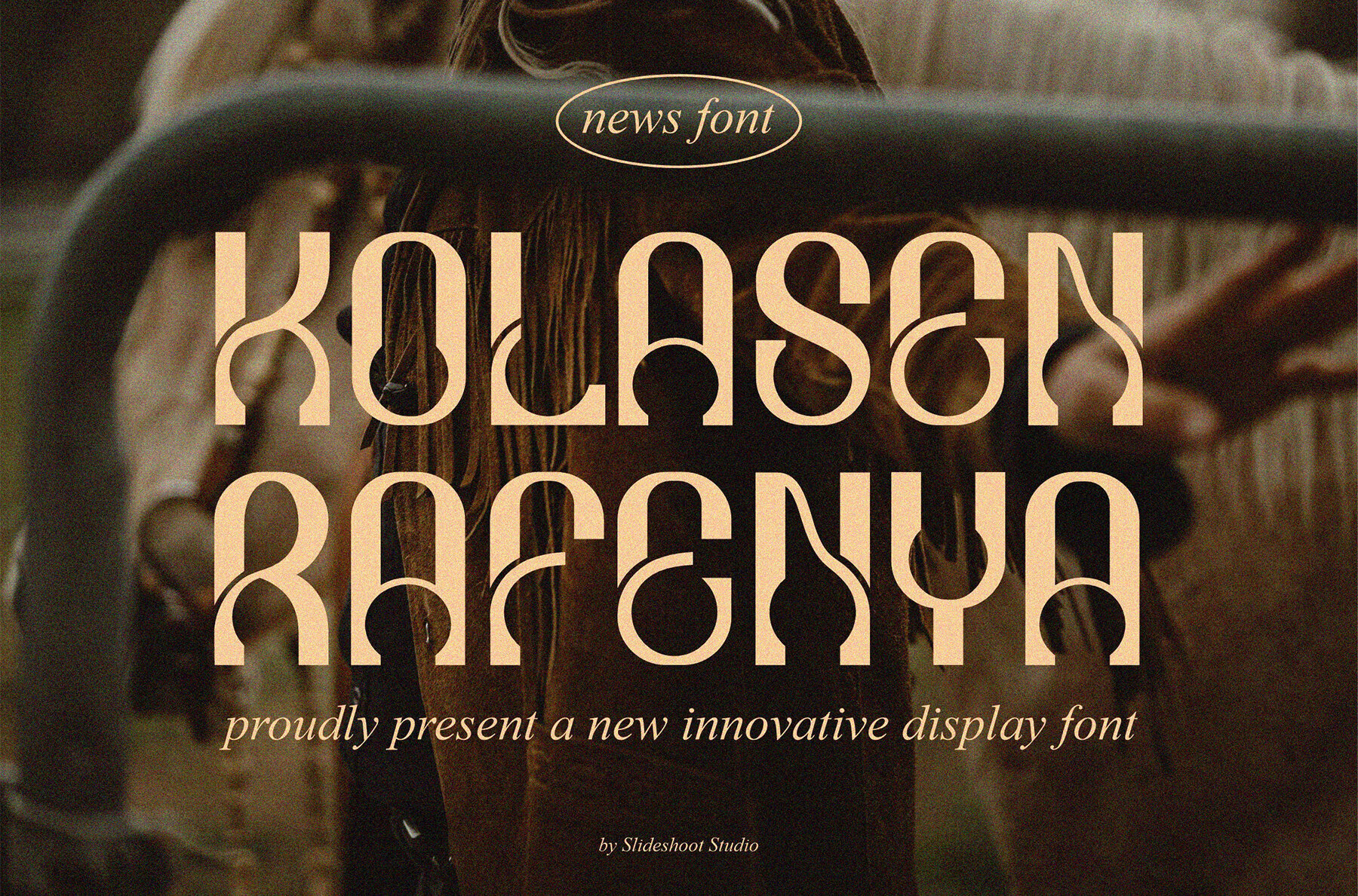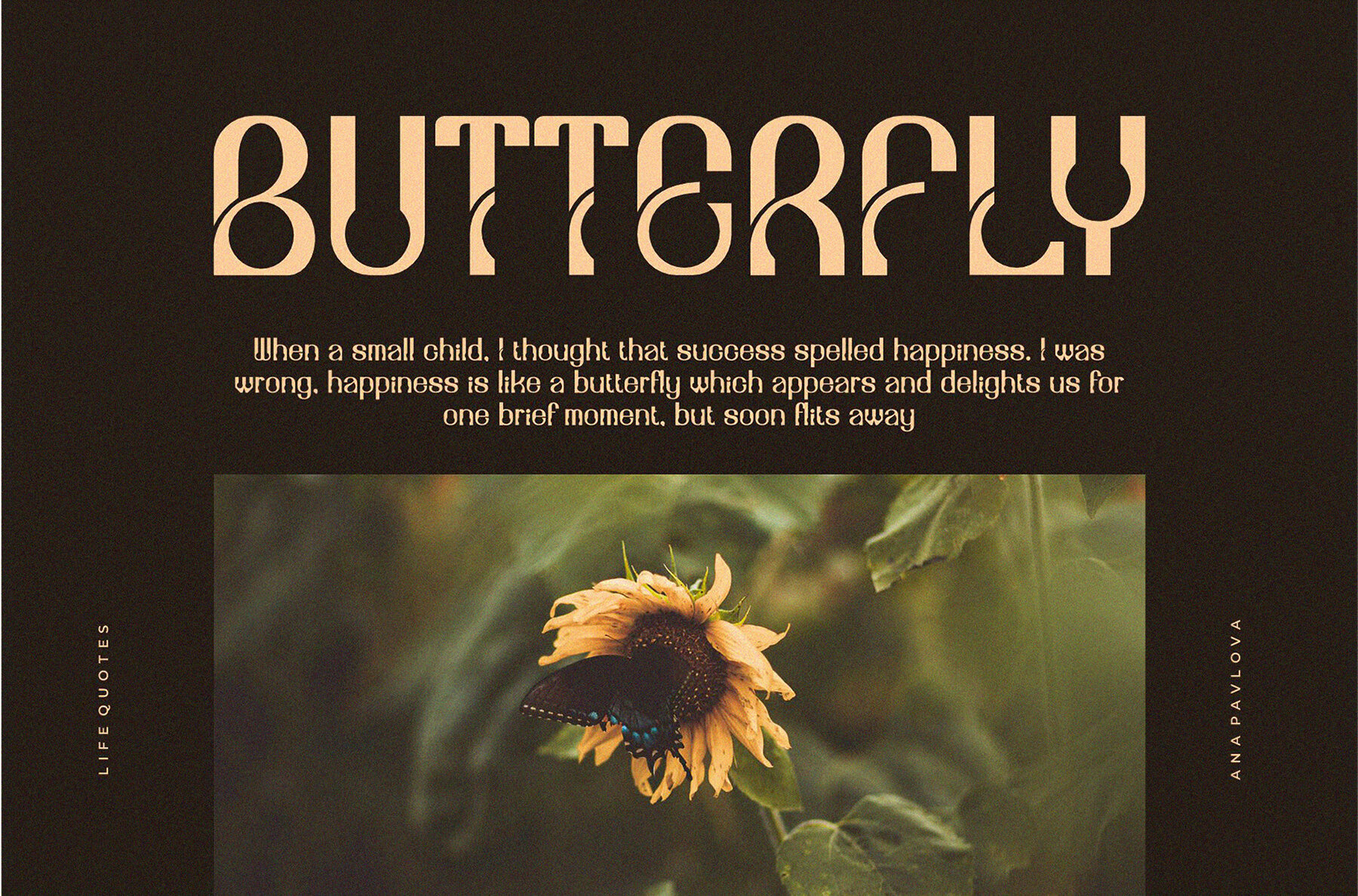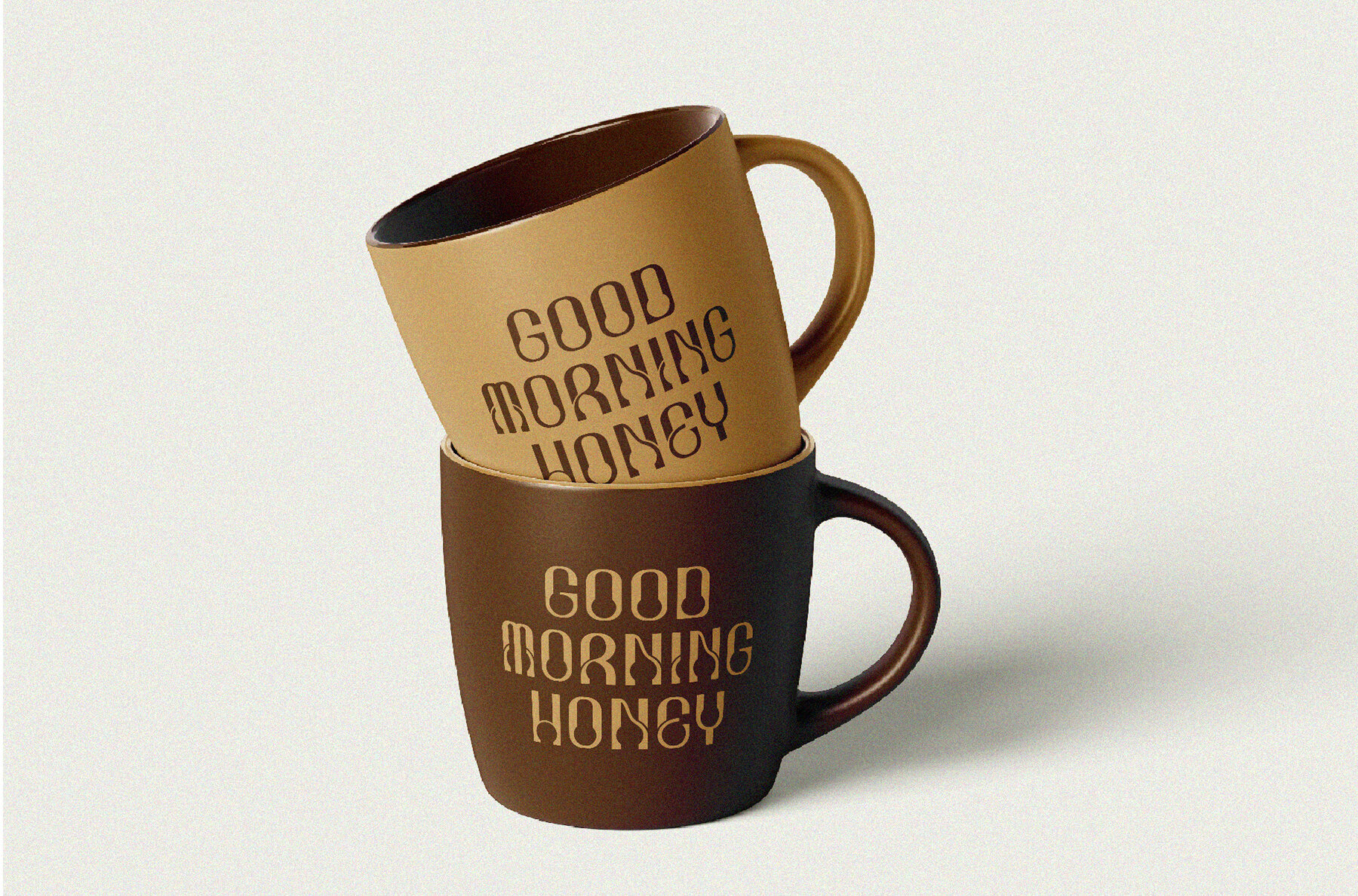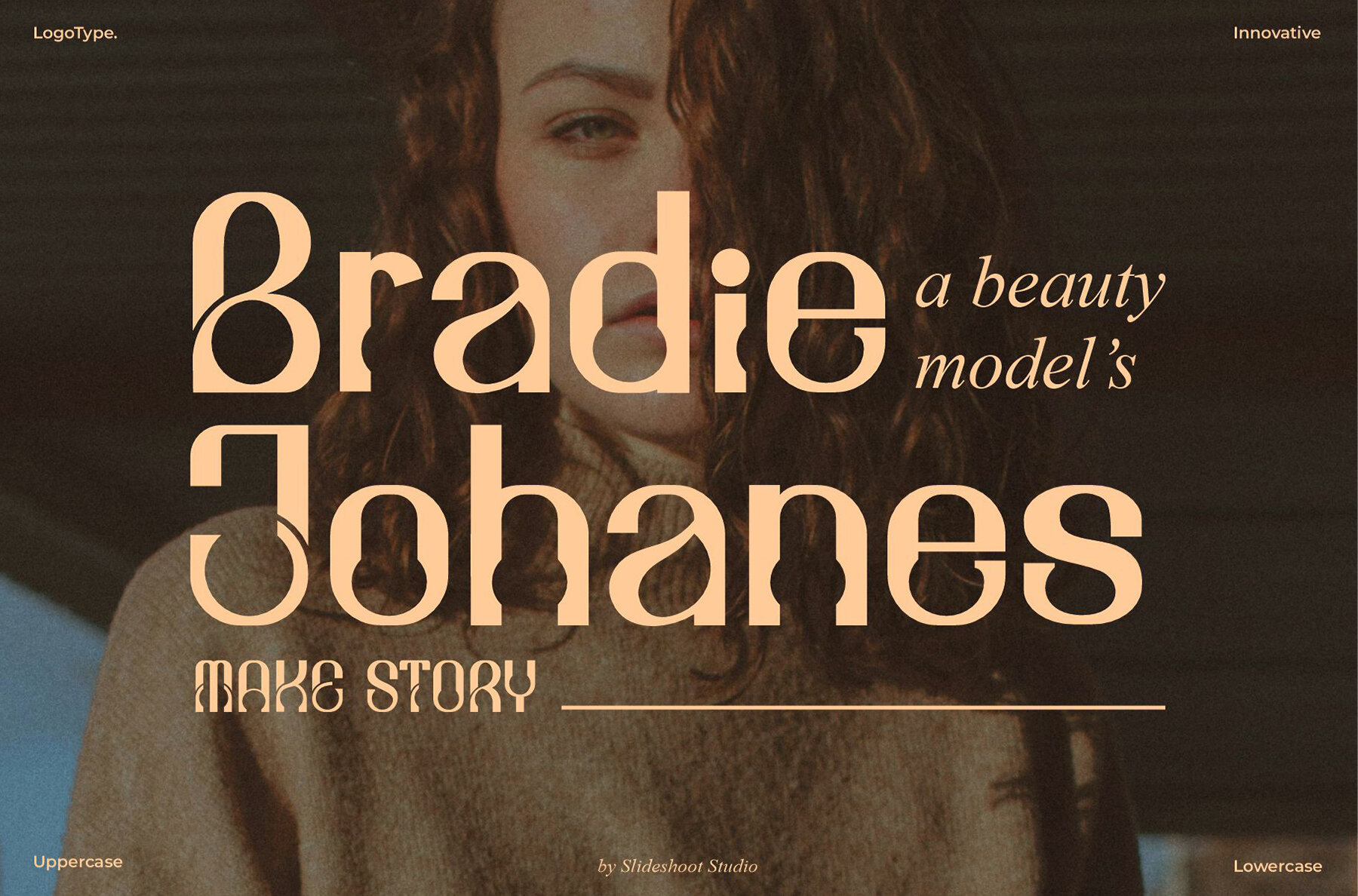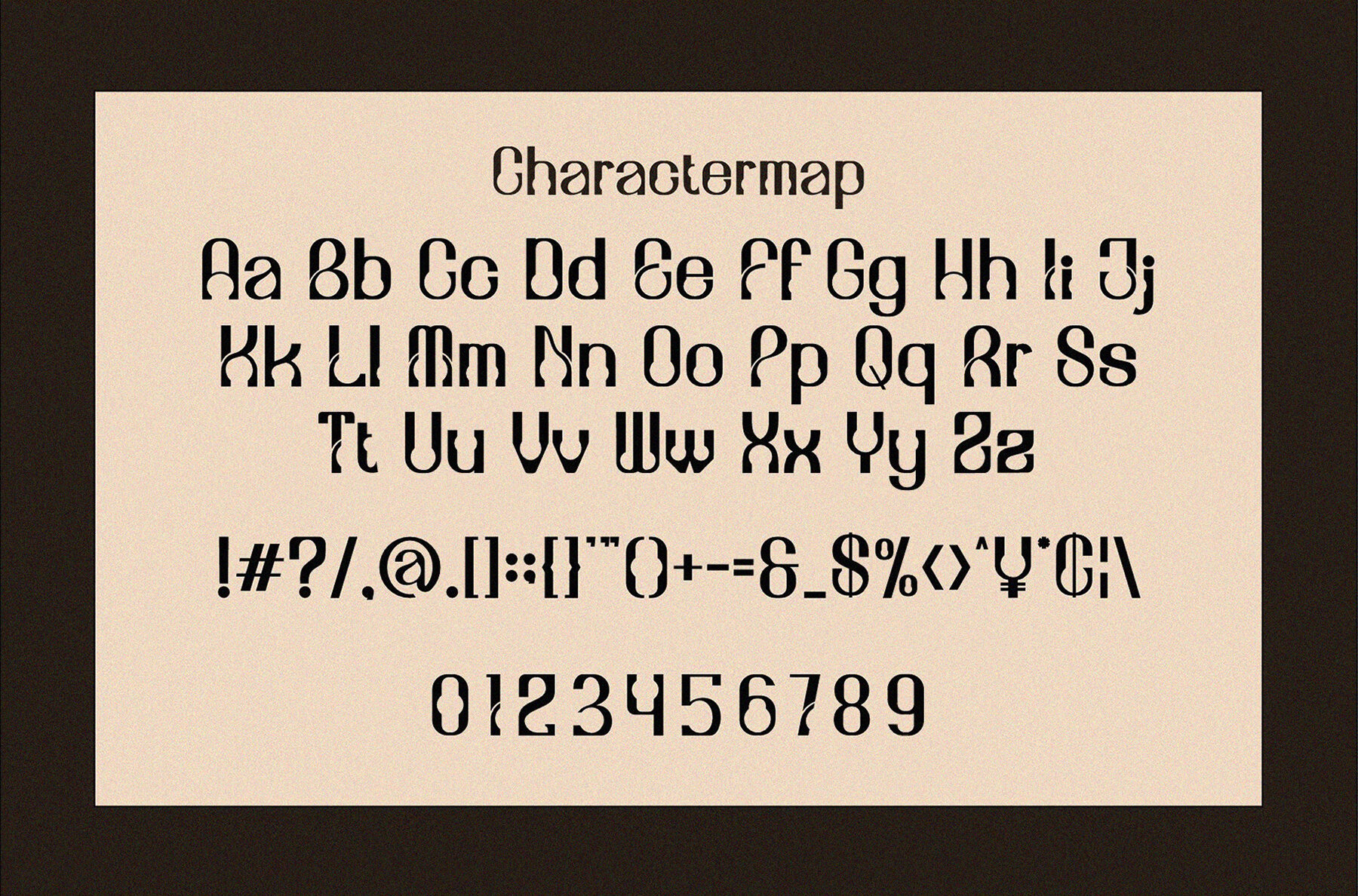
Kolasen Rafenya Font
Kolasen Rafenya
Kolasen Rafenya is a vibrant and playful display font, characterized by its modern and trendy bouncy style. With a distinctive wood-inspired theme, this font brings a unique flair to any design project. Ideal for adding a creative touch, Kolasen Rafenya is perfect for invitation cards, company logos, movie titles, business cards, book covers, and brand identity projects.
This font includes a range of features to enhance your design work. It offers ligatures, both uppercase and lowercase letters, as well as complete numbering and punctuation. Designed for versatility, Kolasen Rafenya functions seamlessly on both PC and Mac. Its simple installation process allows for quick setup, making it compatible with popular design software such as Adobe Illustrator, Adobe Photoshop, and Adobe InDesign, as well as Microsoft Word.